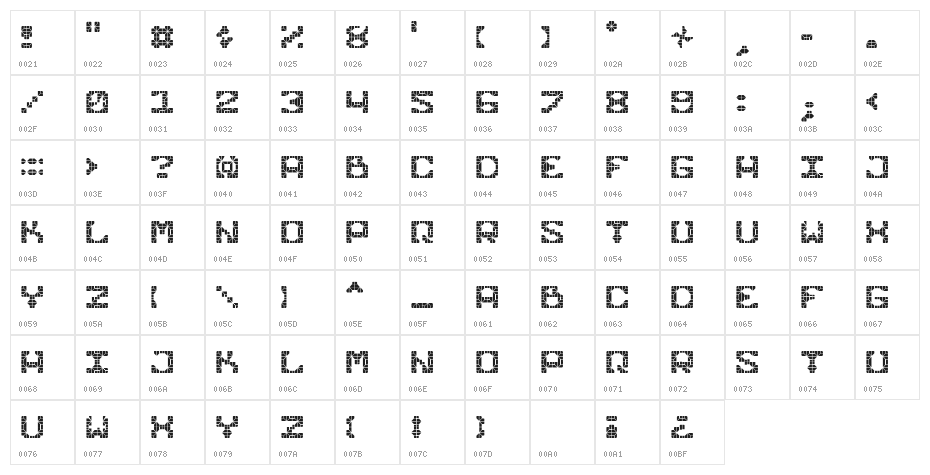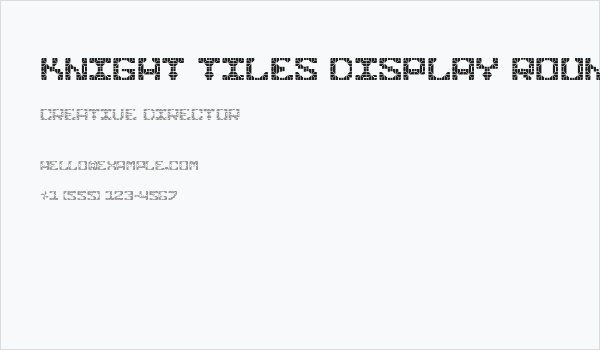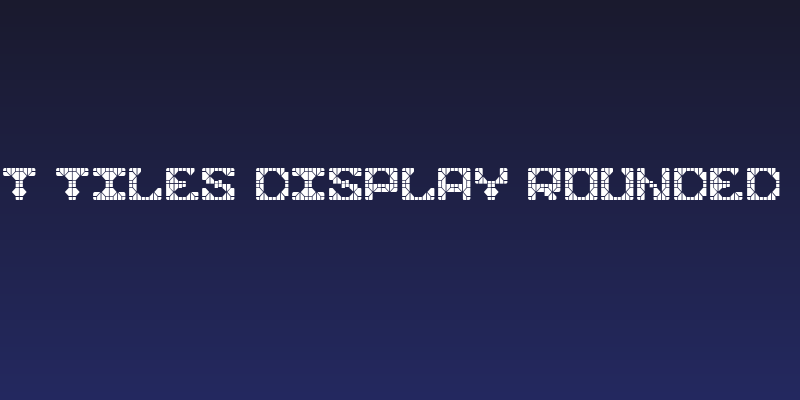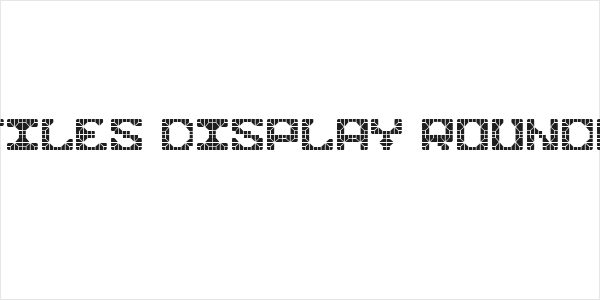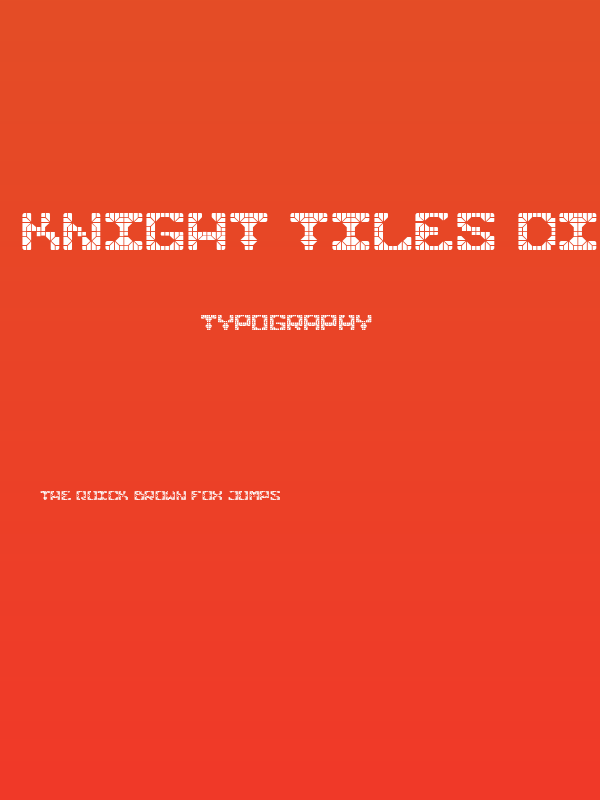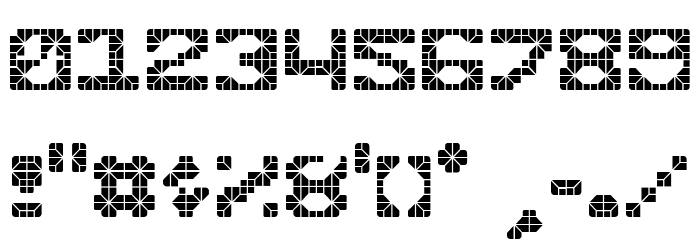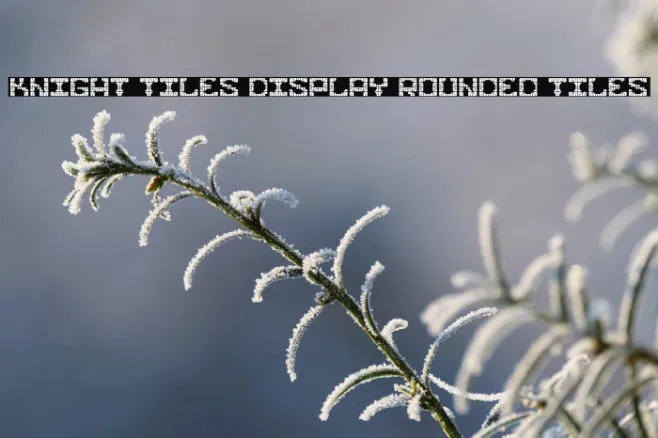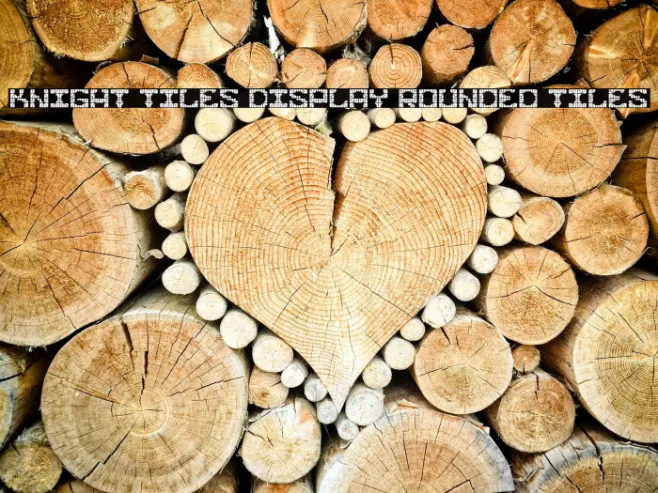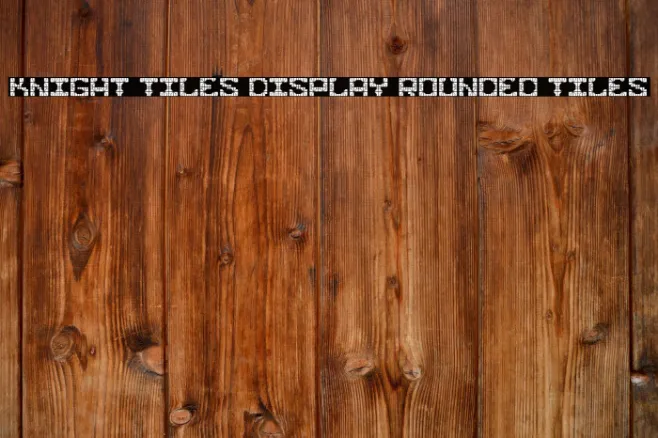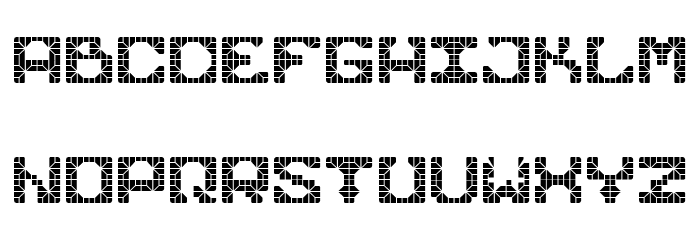
Knight Tiles Display Rounded Tiles Font
Knight Tiles Display Rounded Tiles Description
This font features a unique, geometric design where each character is composed of intricate tile-like patterns. The letters and numbers are formed by a series of rounded tiles, creating a mosaic effect that is both modern and artistic. The use of negative space within the characters adds to the visual complexity, making it suitable for eye-catching designs. The font maintains a consistent height across all characters, ensuring uniformity and balance. Its distinct style is ideal for projects that require a bold and creative touch.
| Proposed Projects | Ideal for branding, posters, album covers, and any design project that seeks to stand out with a bold, artistic statement. |